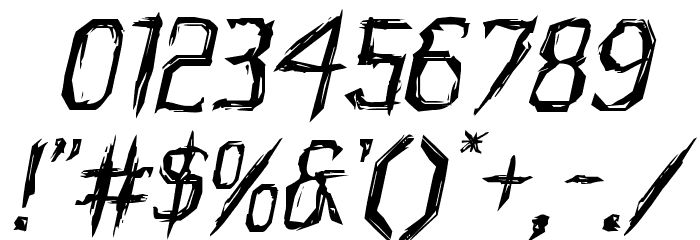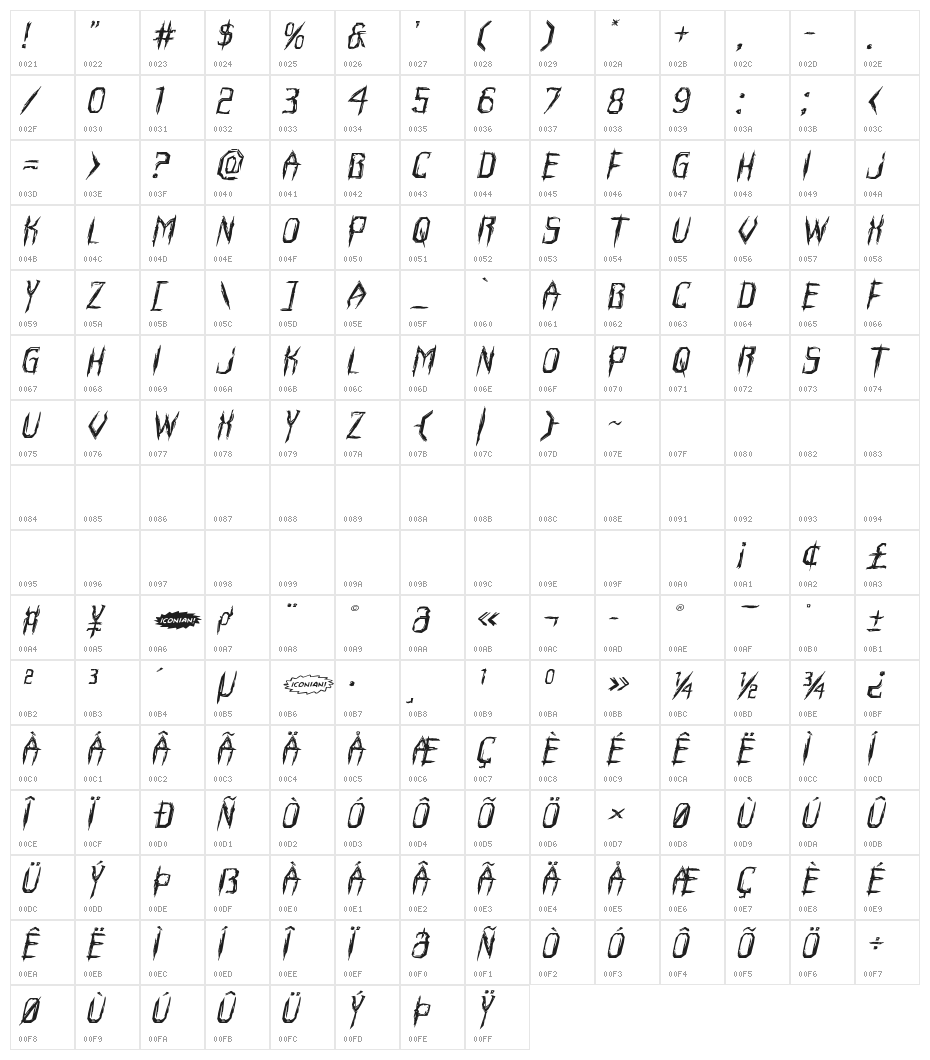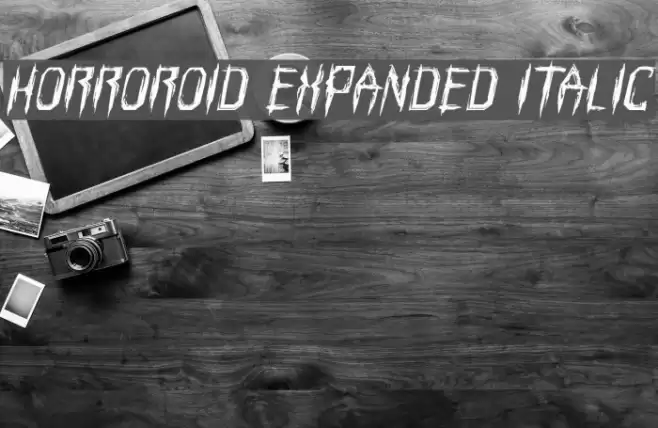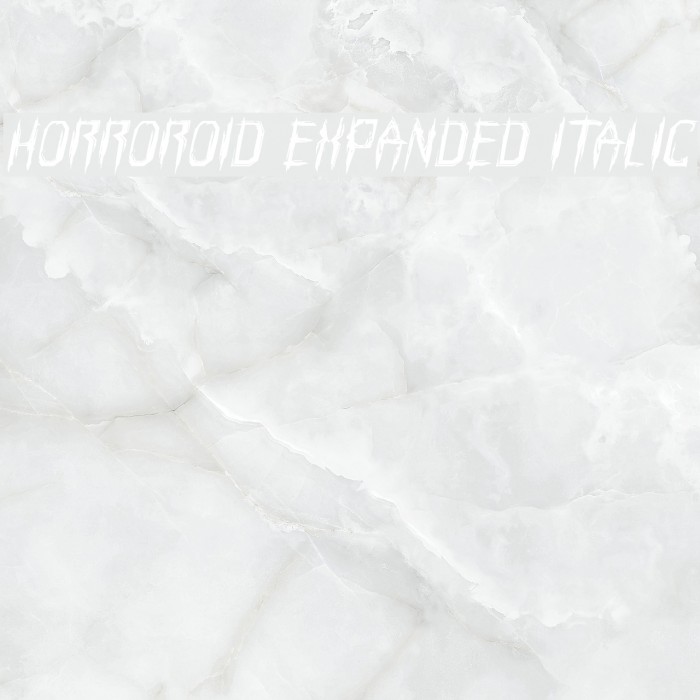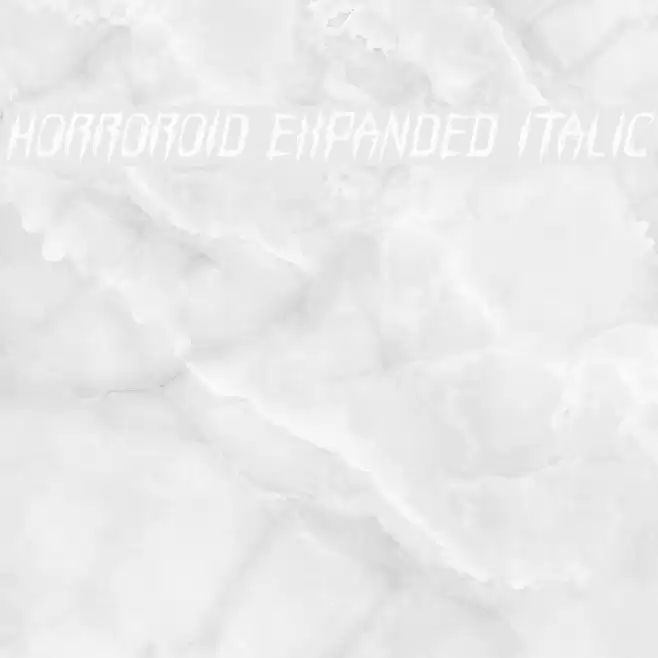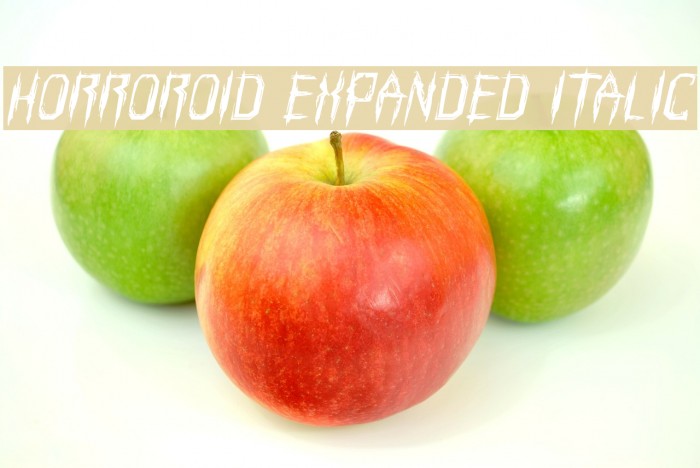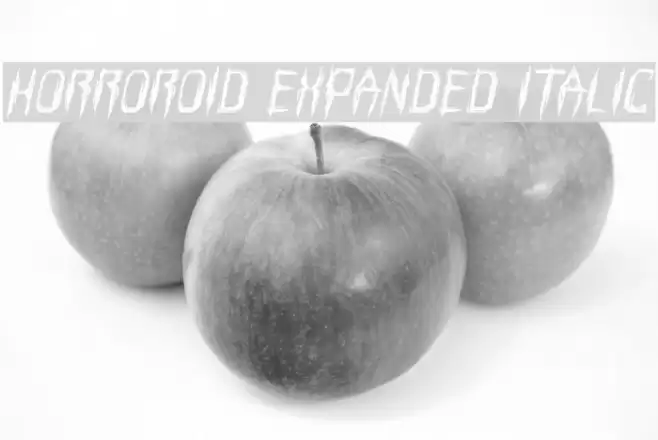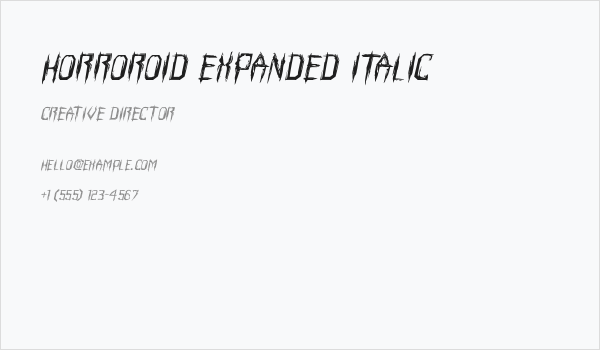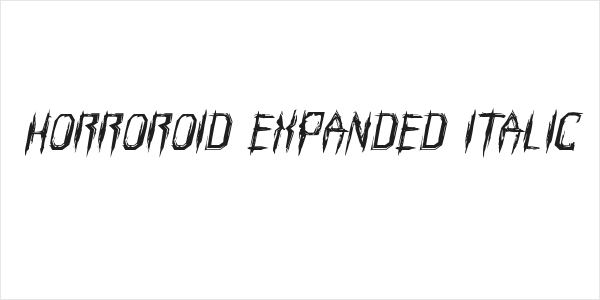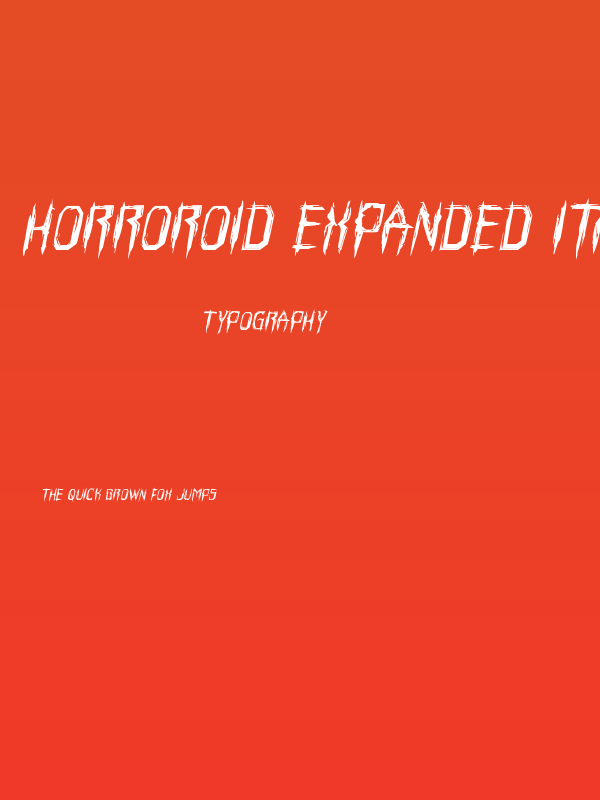
Horroroid Expanded Italic Font
Horroroid Expanded Italic Description
This font features a jagged, edgy design that evokes a sense of horror and intensity. The characters are sharply angled and appear as if they are torn or scratched, giving them a dynamic and aggressive appearance. The expanded width and italic slant add to the dramatic effect, making it ideal for creating a sense of urgency or fear. The uppercase and lowercase letters maintain a consistent style, with numbers and special characters following the same theme. This font is perfect for projects that require a bold, eye-catching display with a touch of the macabre.